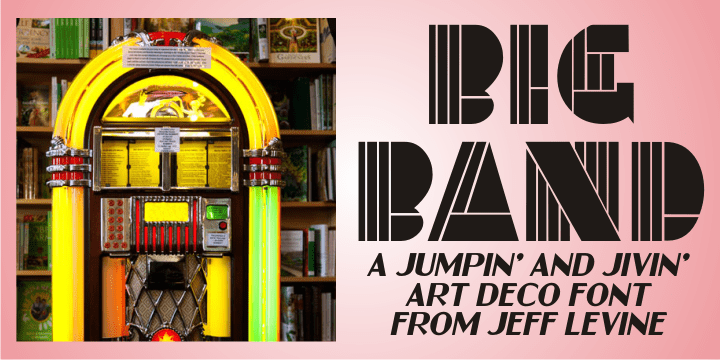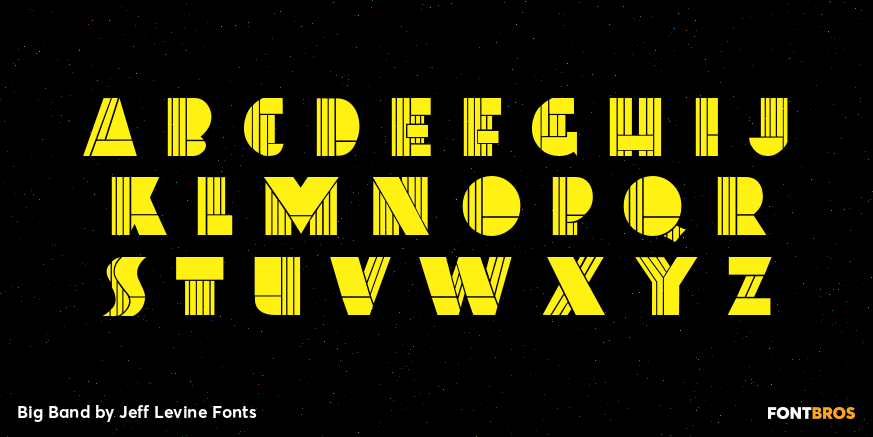
Big Band
Big Band JNL is a classic Art Deco typeface in every sense of the word. Large, bold and innovative in its sectional construction, the font is based on a lettering example found in a 1941 Speedball® Lettering Pen instruction book.
The basic alphabet was used for the model, with a new set of numbers and additional characters created by Jeff Levine in order to make this design fully functional in today's digital designs.